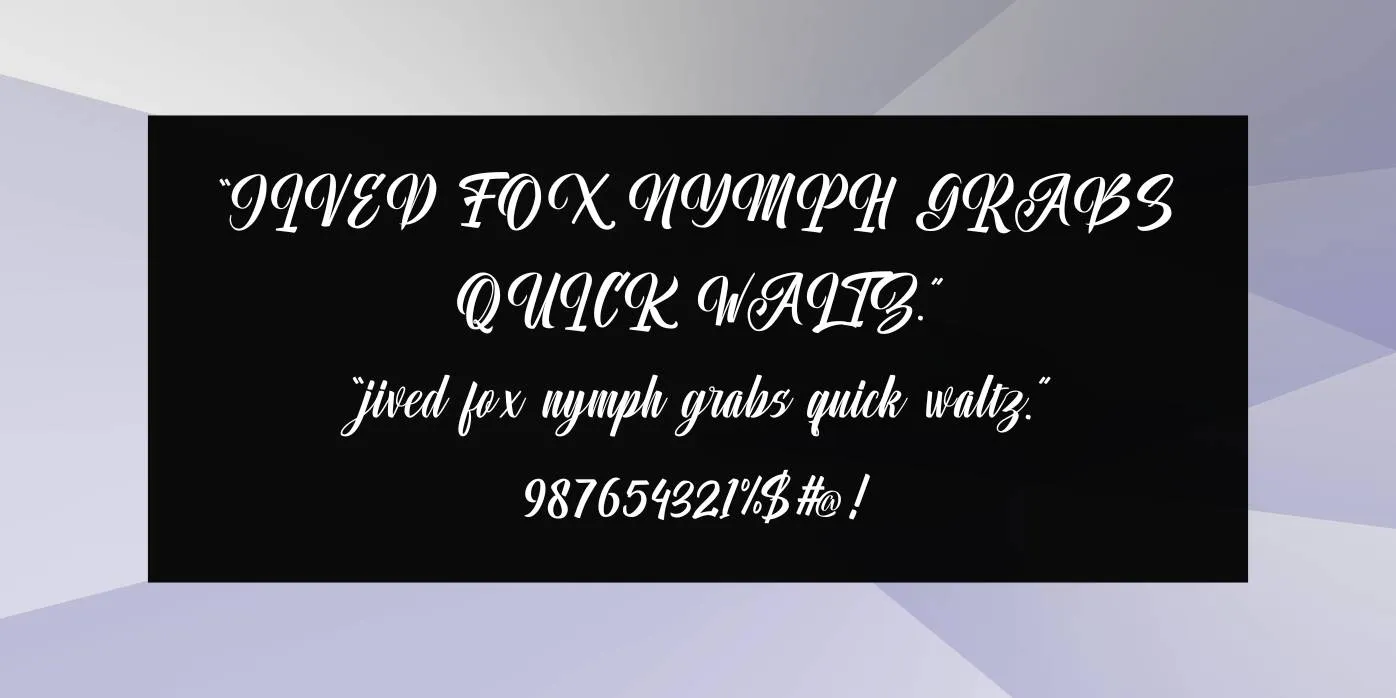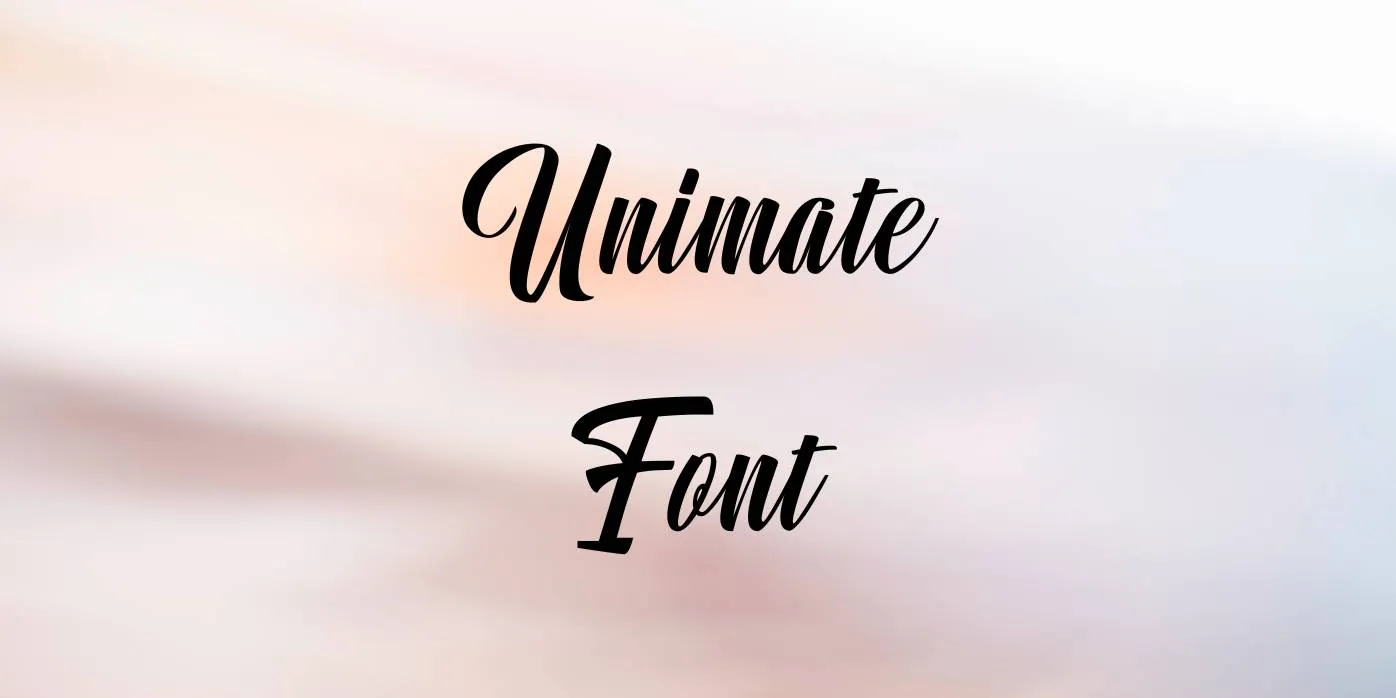
Unimate Font
Today, you are going to read about the handwritten type of font. Unimate Font is a fantastic handwritten type of font. The characters of this typeface are amazing and stylish with low readability. Nur Solikh is the designer of this texture.